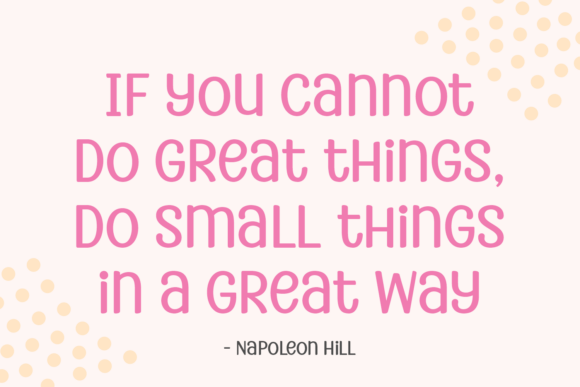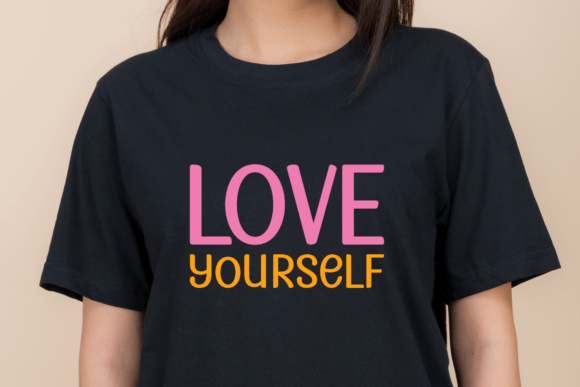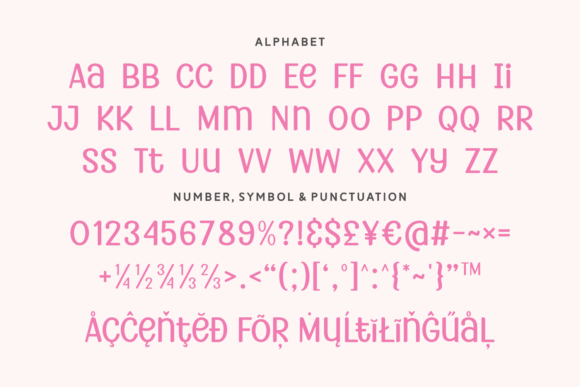
Introduction to Nothing Reaction Font
As a designer, have you ever found yourself stuck in a creative rut, searching for the perfect font to bring your project to life? Perhaps you’re working on a children’s branding campaign and want a typeface that exudes fun and playfulness. Or maybe you’re designing a candy packaging label and need a font that’s as sweet as the treats inside. Whatever your creative project, I’m excited to introduce you to the Nothing Reaction Font – a high-quality, free download that’s about to become your new go-to design resource.
With its smooth, rounded letterforms and zero harsh angles, the Nothing Reaction Font is the perfect addition to any design. Whether you’re working on a project with a transparent background or need a font that pops against a bright color scheme, this font delivers. Its cheerful personality is sure to add a burst of joy to any creation, making it a valuable asset for designers looking to elevate their work.
Key Features of Nothing Reaction Font
- High-quality design: The Nothing Reaction Font is designed with precision and attention to detail, ensuring a professional and polished look for any creative project.
- Unique characteristics: The Nothing Reaction Font features a unique and modern design aesthetic, making it an ideal choice for creative projects that require a touch of sophistication.
- Perfect for creative projects: Whether you’re working on a logo, brochure, or website, the Nothing Reaction Font is an excellent design resource that can help elevate your creative project.
Honest Review: Nothing Reaction Font
As a designer, I’m always on the lookout for high-quality fonts that can elevate my creative project. Recently, I stumbled upon the Nothing Reaction Font, and I’m excited to share my honest review with you.
What works well: ✨ The Nothing Reaction Font is a free download, which is a huge plus for designers on a budget. The font is also designed with a transparent background, making it perfect for overlaying on images or videos. The style is modern and sleek, making it a great addition to any design resource.
What doesn’t work well: ⚠️ One of the limitations of the Nothing Reaction Font is that it’s a bit limited in terms of character sets. While it’s great for basic text, it may not be suitable for more complex designs that require a wide range of characters.
Overall impression: I’m really impressed with the Nothing Reaction Font, and I think it’s a great addition to any designer’s toolkit. While it has some limitations, its modern style and transparent background make it a valuable design resource.
- Modern and sleek style
- Limited character sets
Tips for Getting the Most Out of the Nothing Reaction Font
Experiment with different font sizes and styles to create visual interest. Combine the font with other design elements, such as images or graphics, to create a unique design. Consider using the font in a variety of design projects, from social media graphics to presentations.
The Nothing Reaction Font is ideal for use in a variety of creative projects, including social media graphics, presentations, and infographics. Its high-quality design and transparent background make it a versatile design resource for designers and non-designers alike.